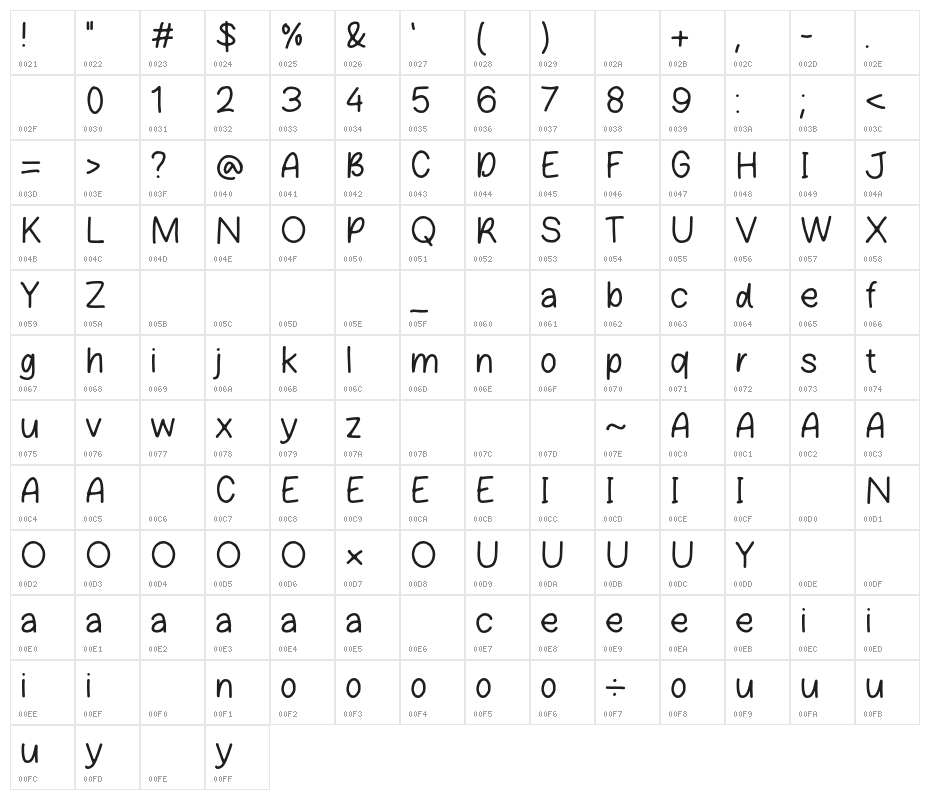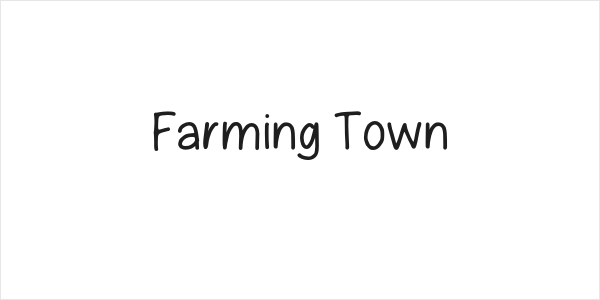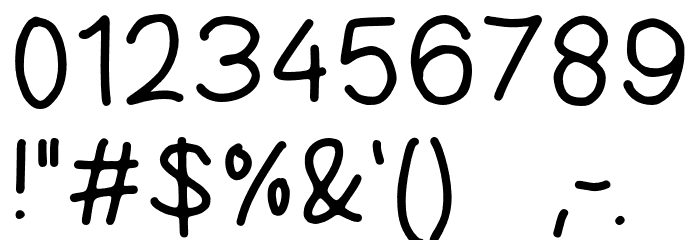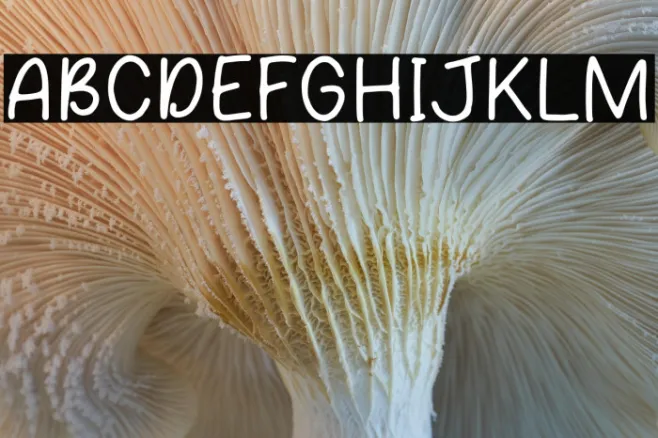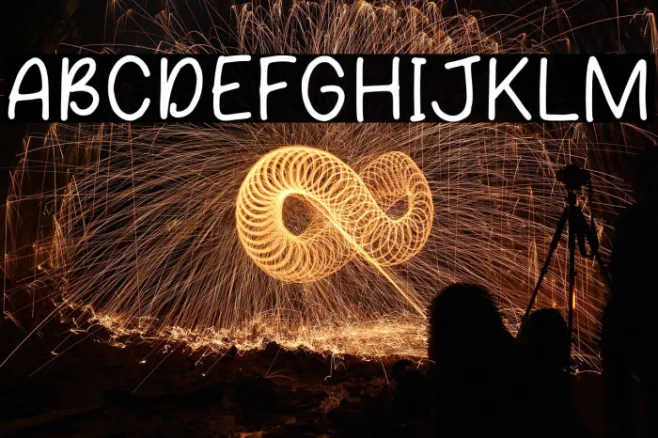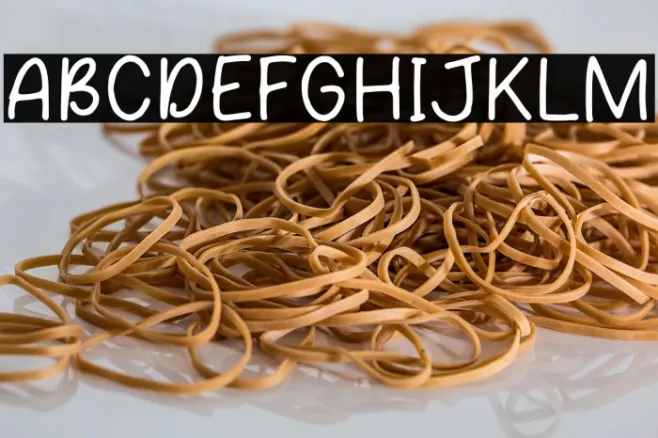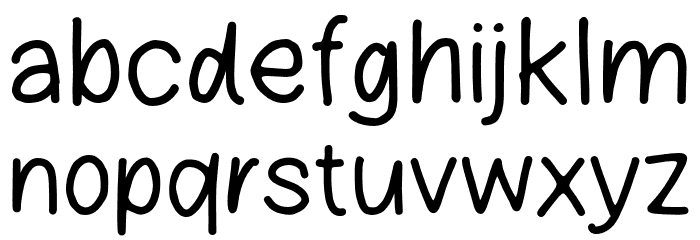
Farming Town Font
Farming Town Description
This font features a playful and casual handwritten style, characterized by its smooth, rounded edges and slightly irregular letterforms that give it a friendly and approachable appearance. The uppercase and lowercase letters maintain a consistent flow, with a moderate height difference that enhances readability. The numerals are clear and distinct, matching the overall playful aesthetic. Special characters are well-integrated, maintaining the same informal style. This font exudes a sense of warmth and personal touch, making it ideal for projects that require a human element.
| Use Case | Headlines, Informal text, Personal projects |
| Proposed Projects | Ideal for children's books, greeting cards, personal blogs, and informal branding. |